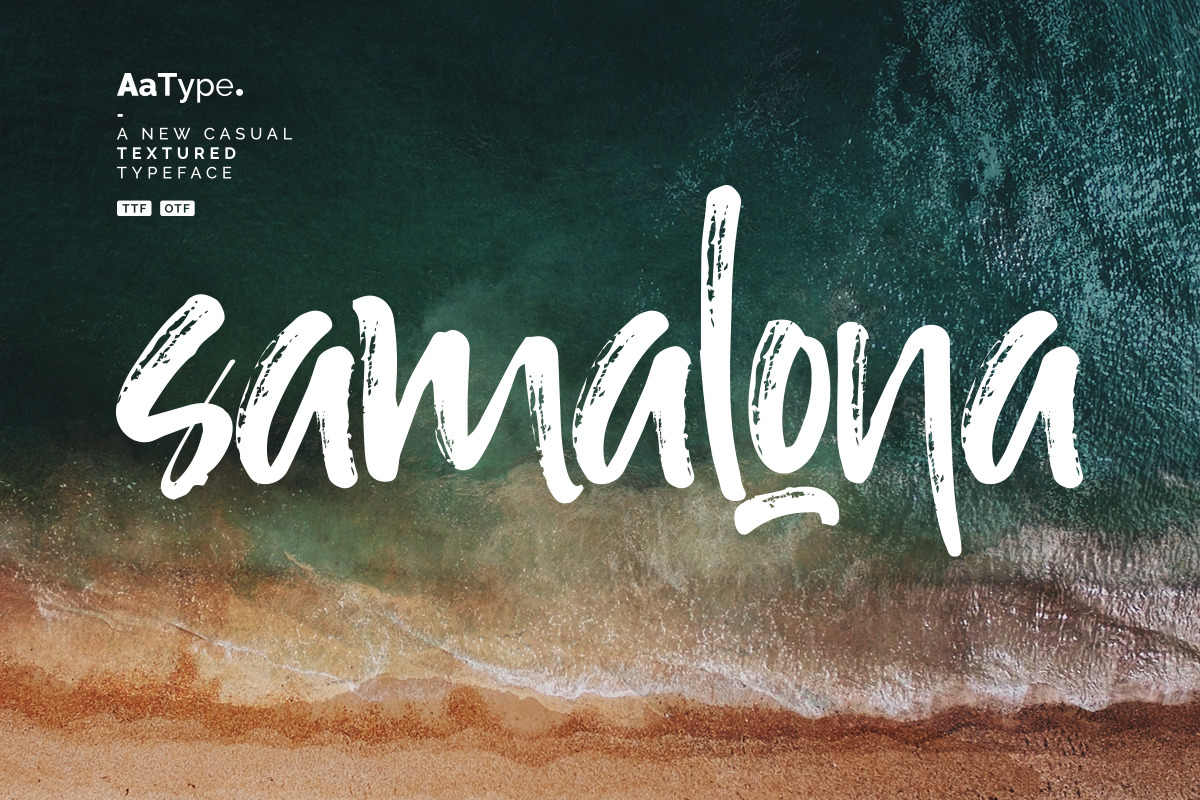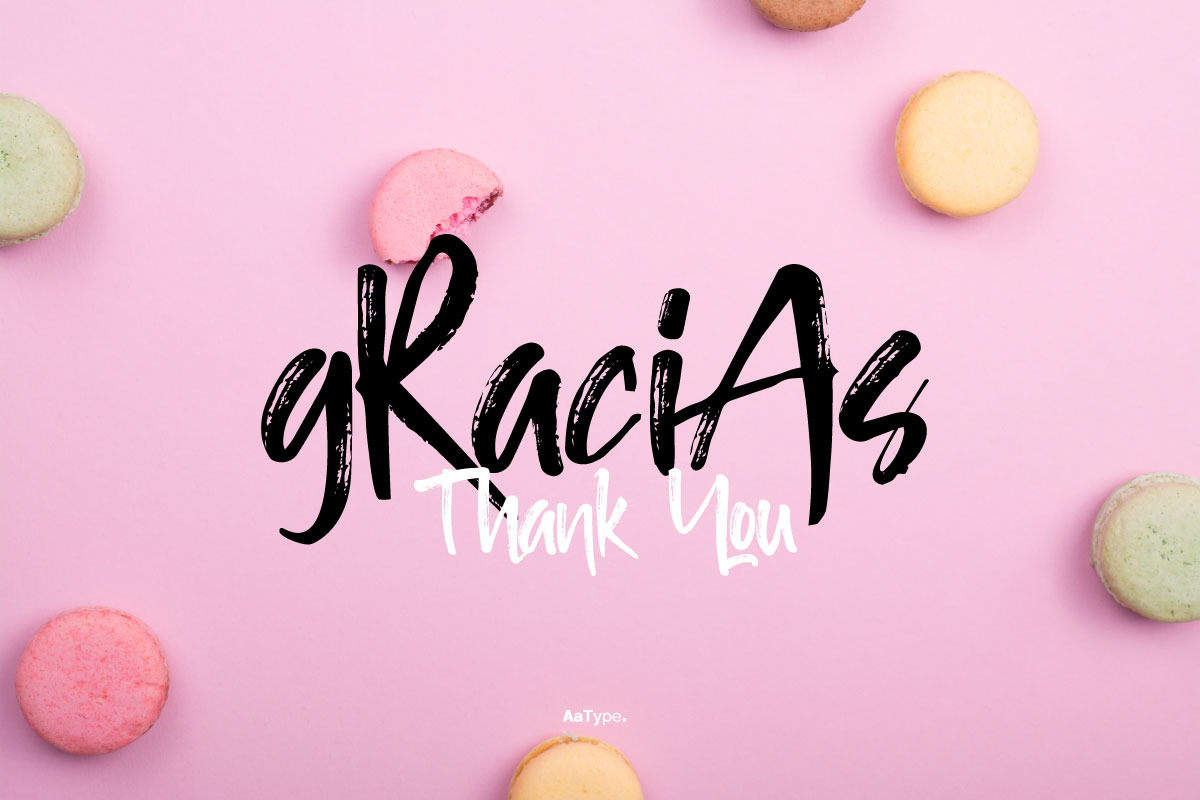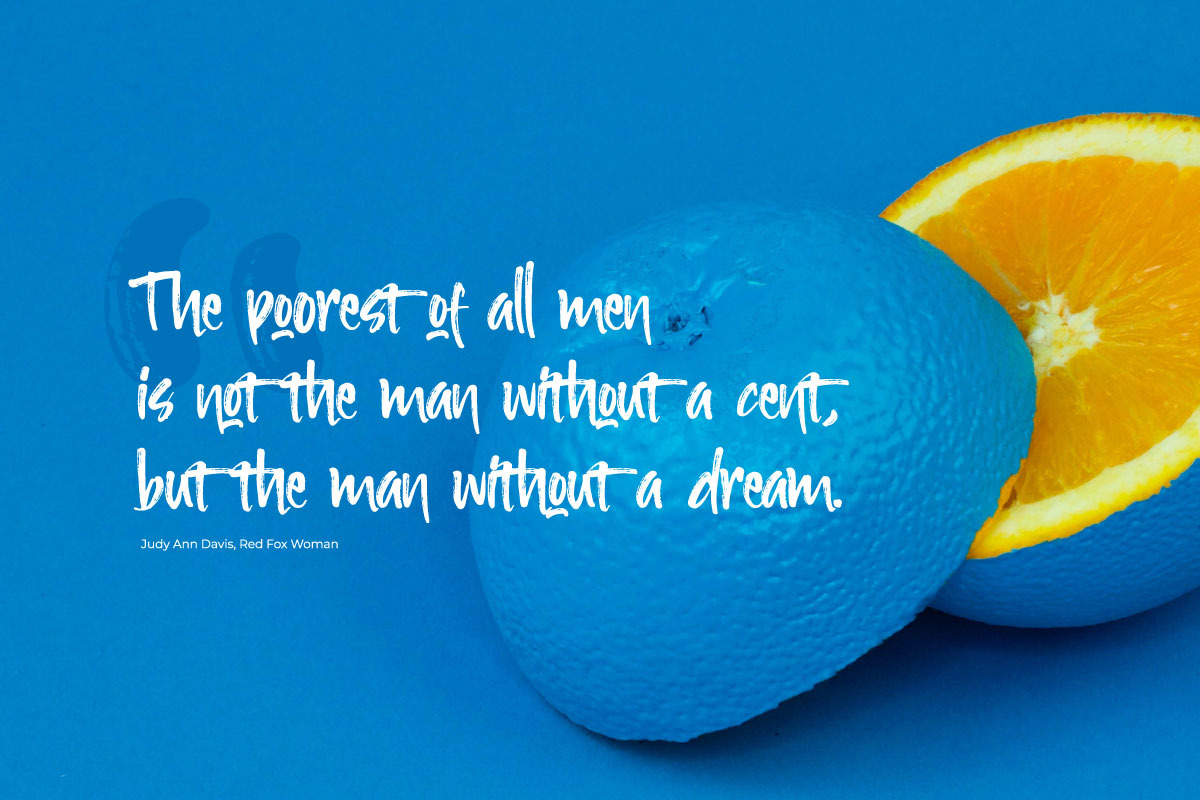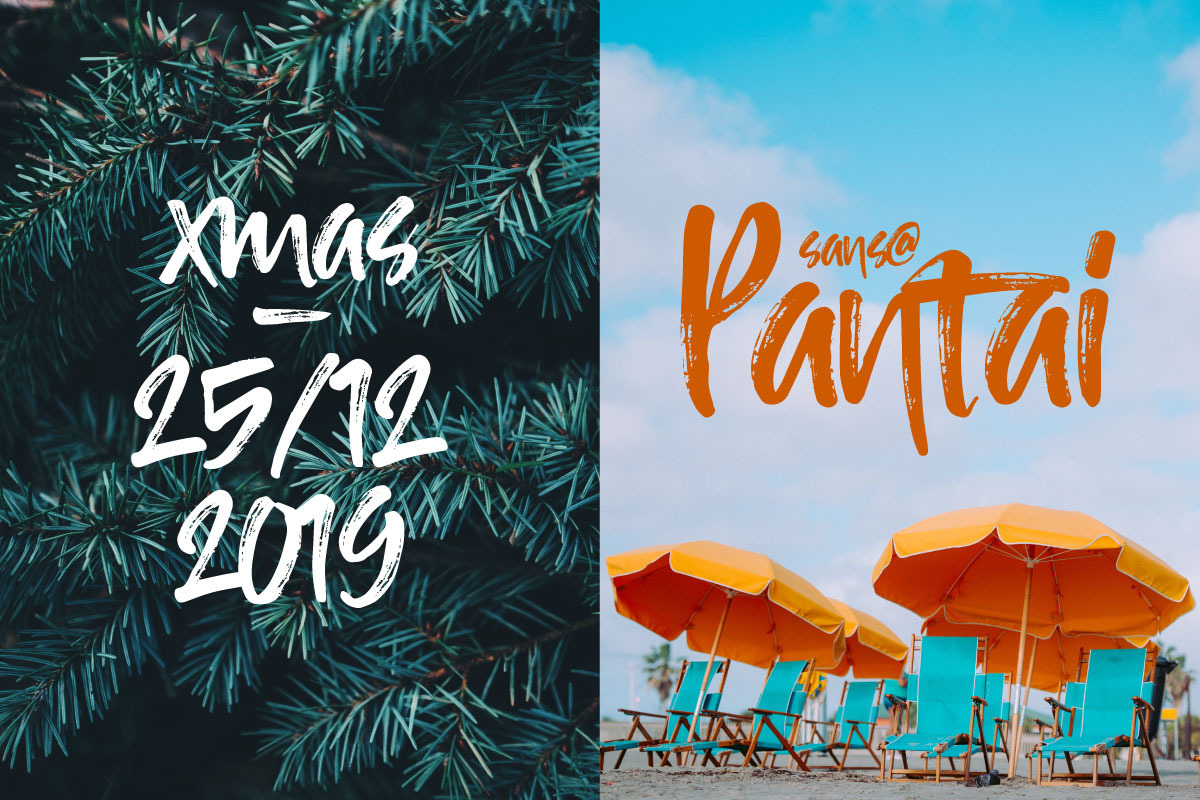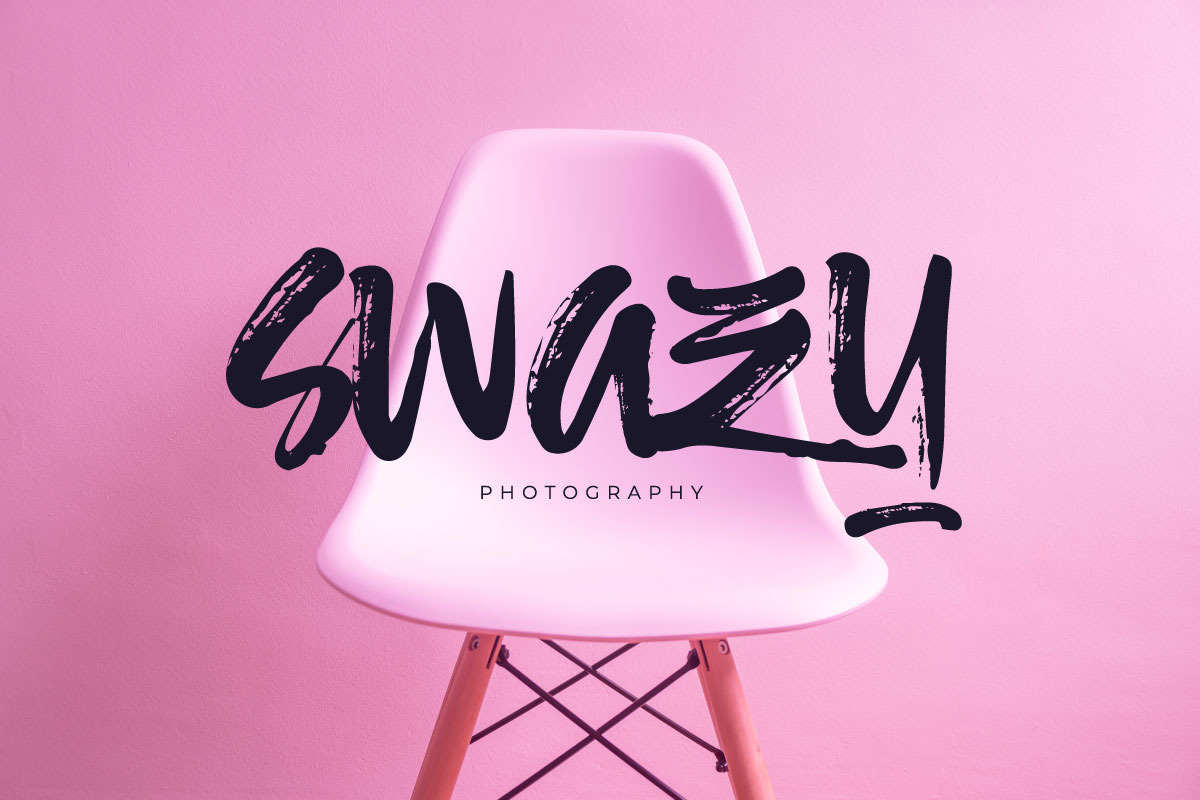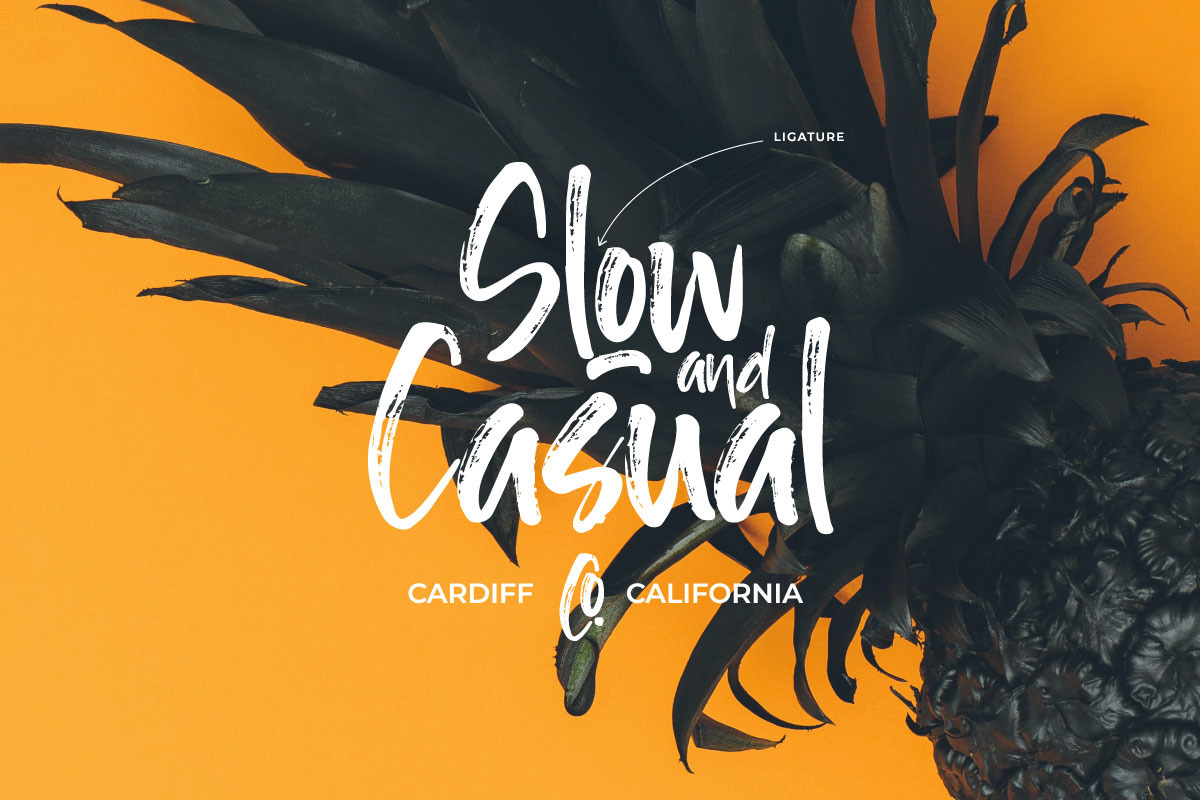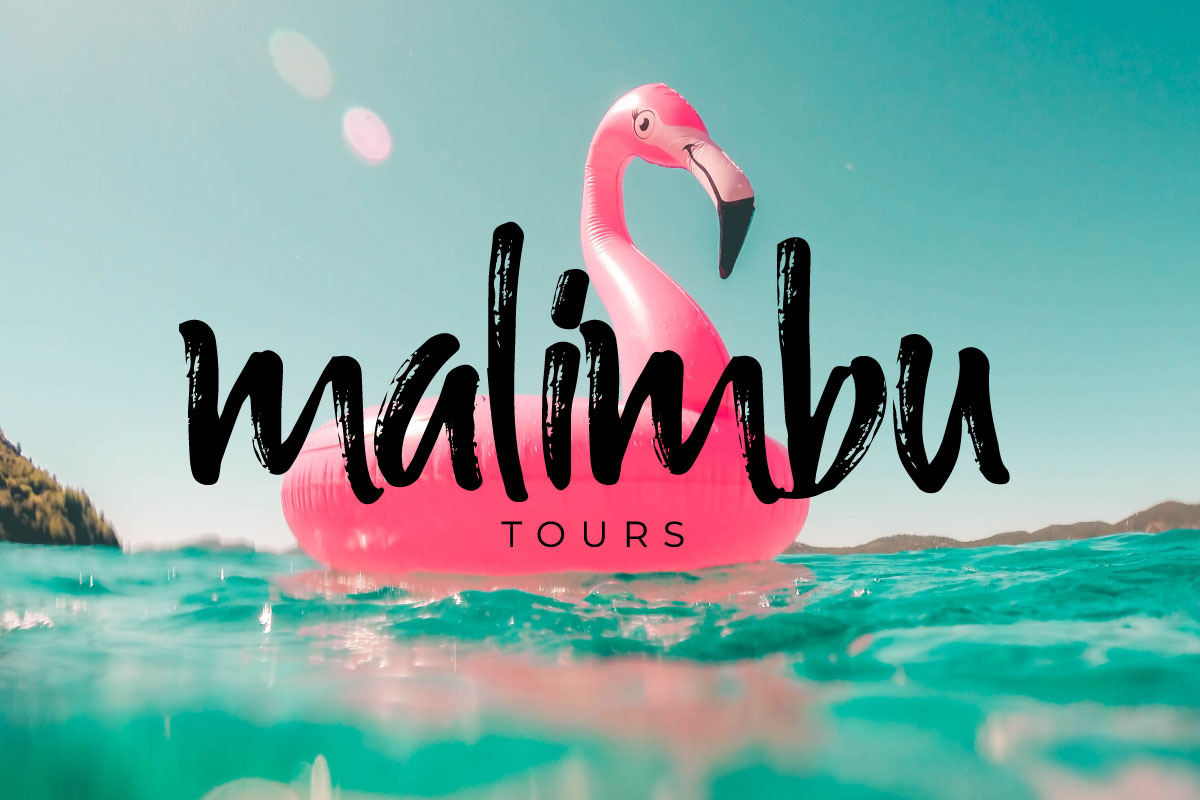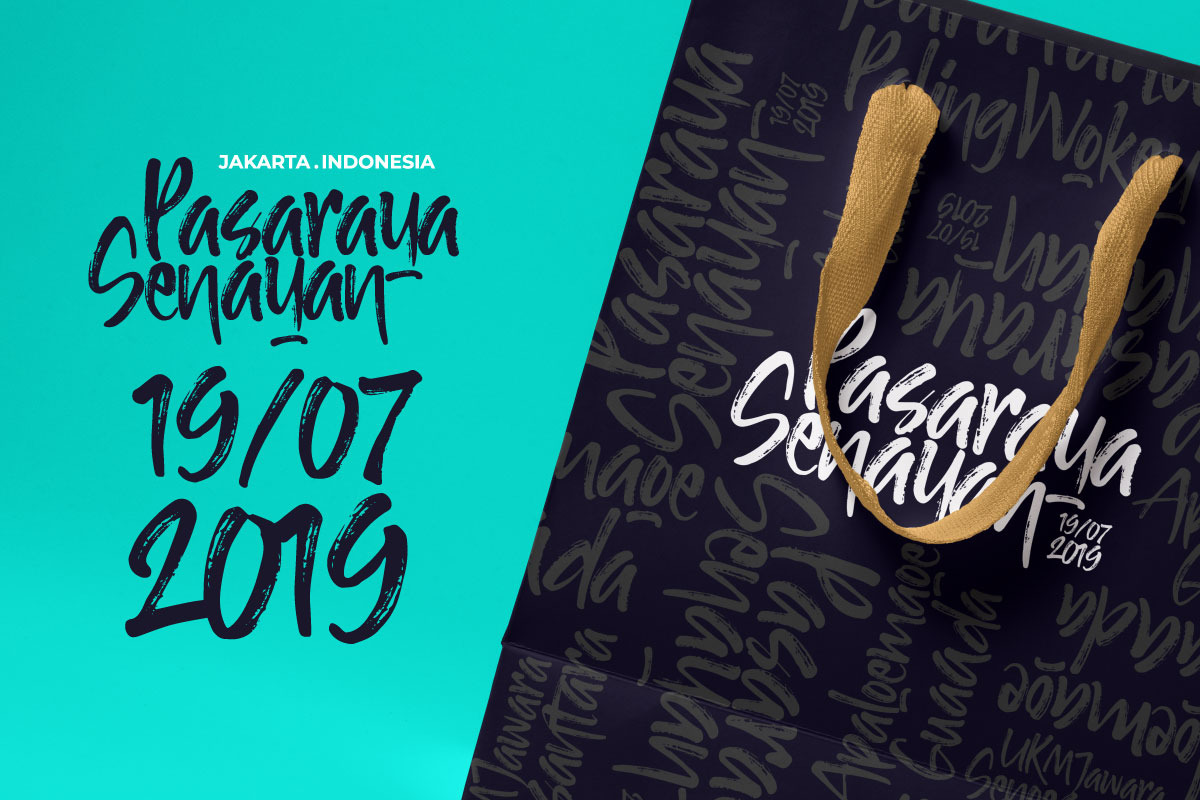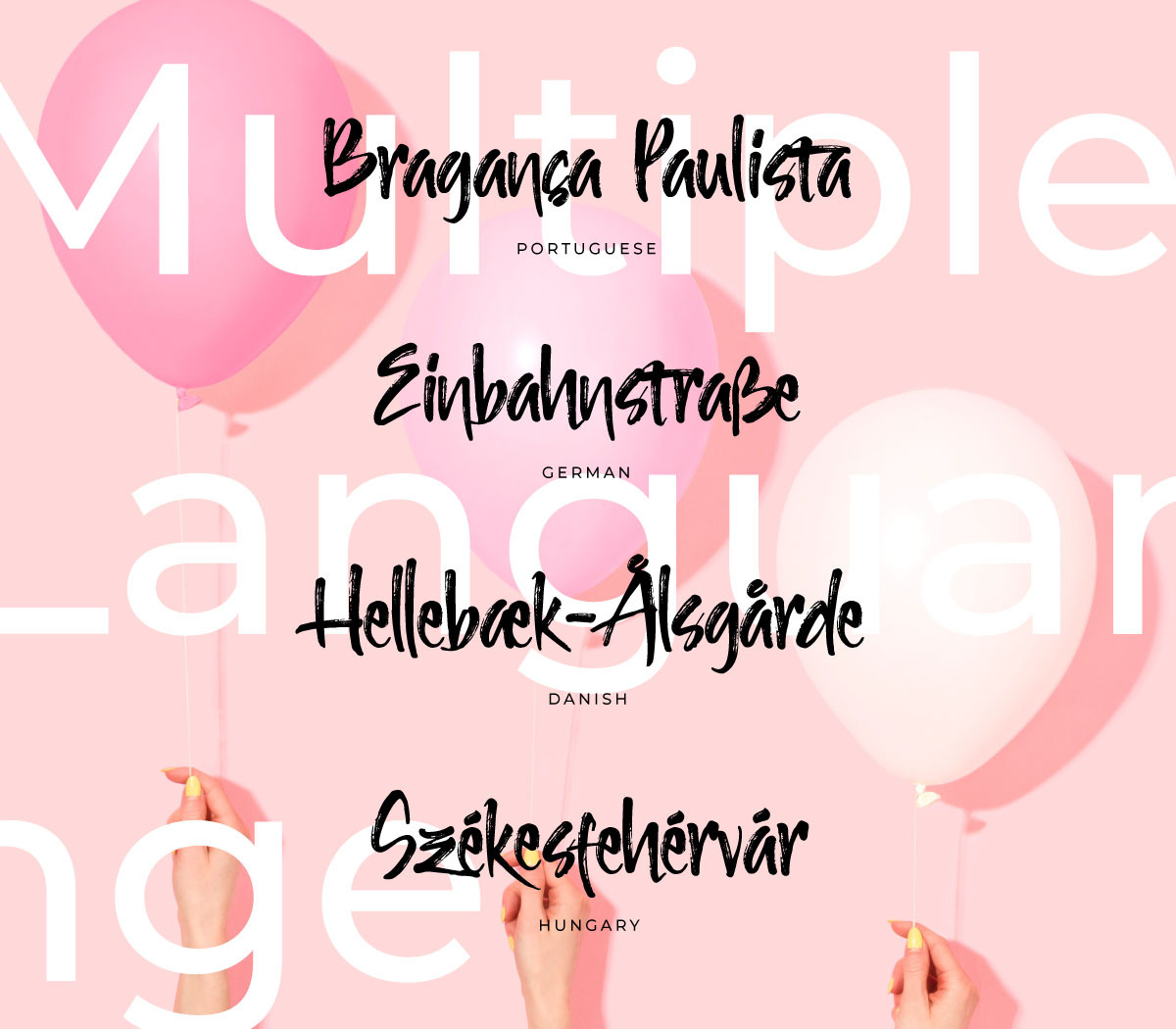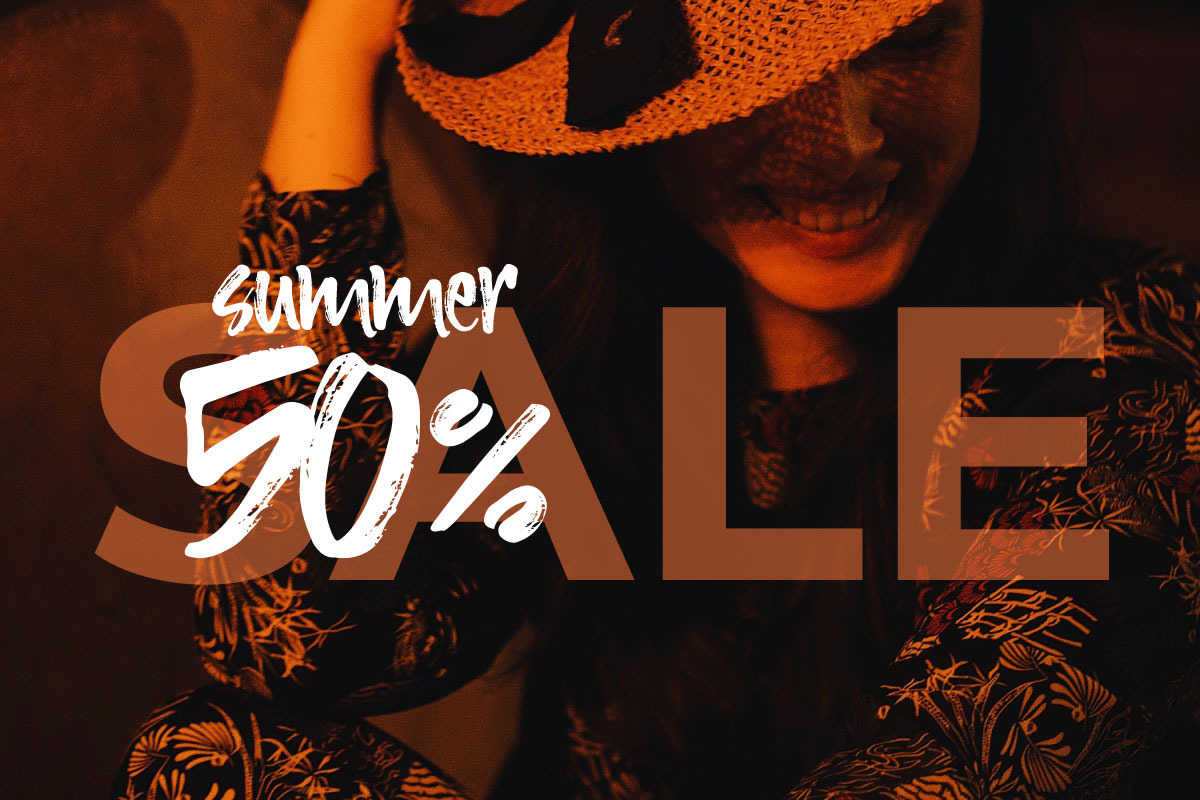
Hello, this brushed font called Samalona just sail away. A new casual textured font just for you. Samalona is not just a regular handwriting style font. This handwriting font specifically established for random, fast with unique handwriting and bouncy looks. It is perfect for your special branding, invitation, displays, headers, event name, blogs, poster, social media stuff and so much more. - Samalona comes with Uppercase & Lowercase, Numeral, Punctuation, Ligatures, and also Support Multiple Language, German, Portuguese, Hungary, & Danish. - Feel free to contact me if you have any question. Don't forget the Like button, folks! Thank You | Samalona Textured Font | AaType